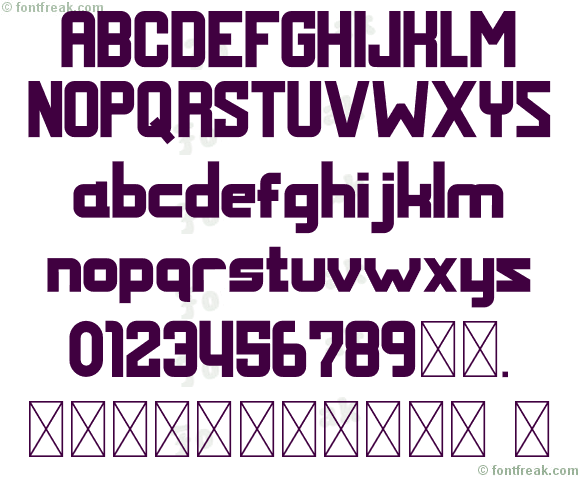
MALDINI Bold
MALDINI STYLE
MALDINI NORMAL
About MALDINI Bold
MALDINI Bold by Eknoji Studio is a striking sans-serif typeface that captures attention with its modern aesthetics and robust design. This typeface features a strong stroke weight, providing a sense of stability and confidence. The uniformity in its letterforms gives it a clean and contemporary look, while the slightly rounded edges soften its presence, making it approachable yet impactful. The spacing between characters is well-balanced, ensuring readability across various applications.
Ideal for a range of creative projects, MALDINI Bold shines in use cases such as movie posters, where its boldness can convey dramatic themes effectively. It also works wonderfully for restaurant menus, offering a clear presentation that enhances the dining experience. Graphic designers will find it suitable for branding purposes, particularly in logos that require a modern touch. Furthermore, this font can elevate promotional materials, providing a cohesive and professional appearance that captures the essence of any campaign.
What sets MALDINI Bold apart is its ability to blend style and functionality seamlessly. The font's distinctive character and bold presence make it a standout choice for those who want to make a statement. Whether you’re creating eye-catching marketing materials or engaging digital content, this typeface adds a layer of professionalism and flair. Don't miss the opportunity to enhance your designs with the MALDINI Bold font free download, and experience the difference it can make in your creative endeavors.